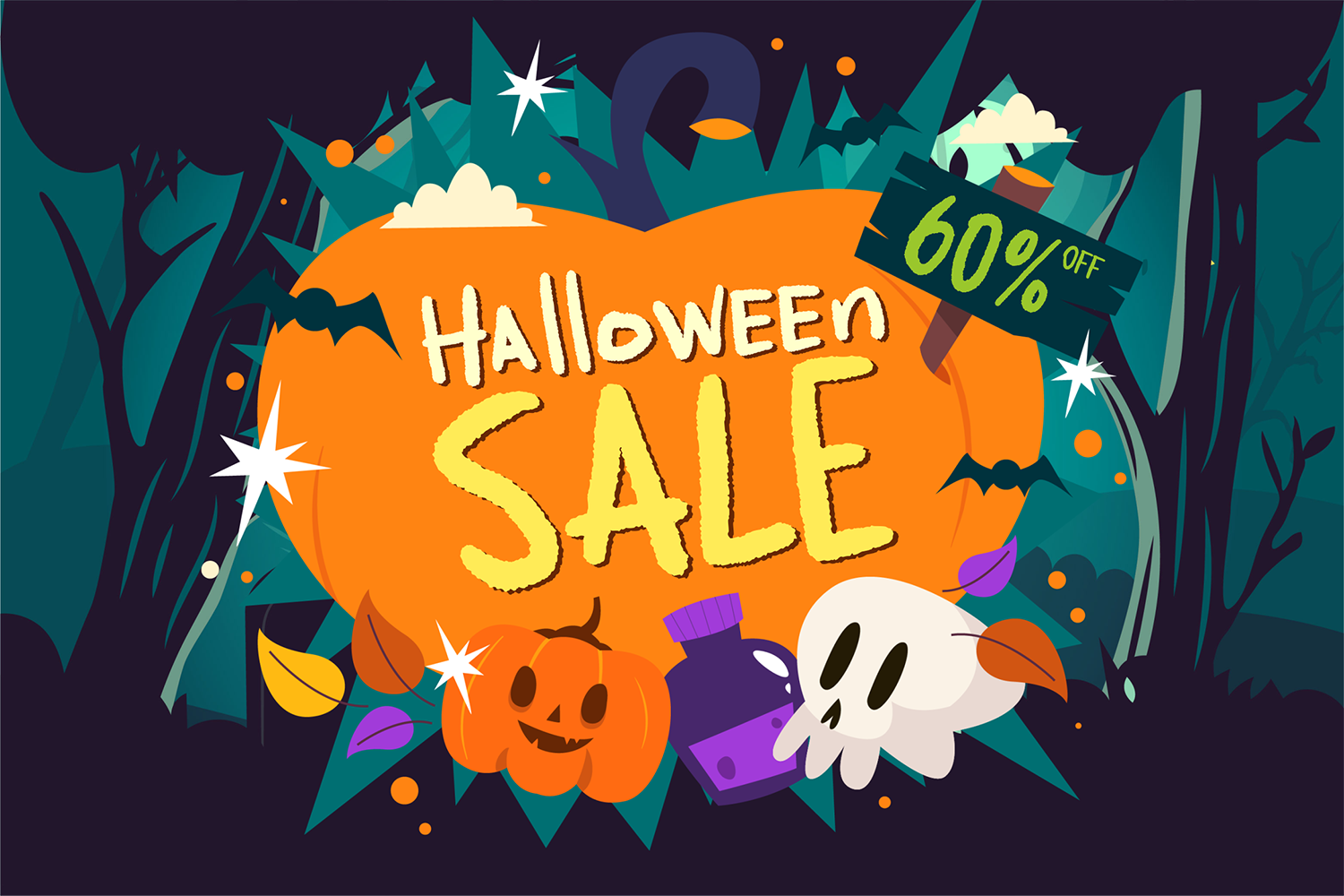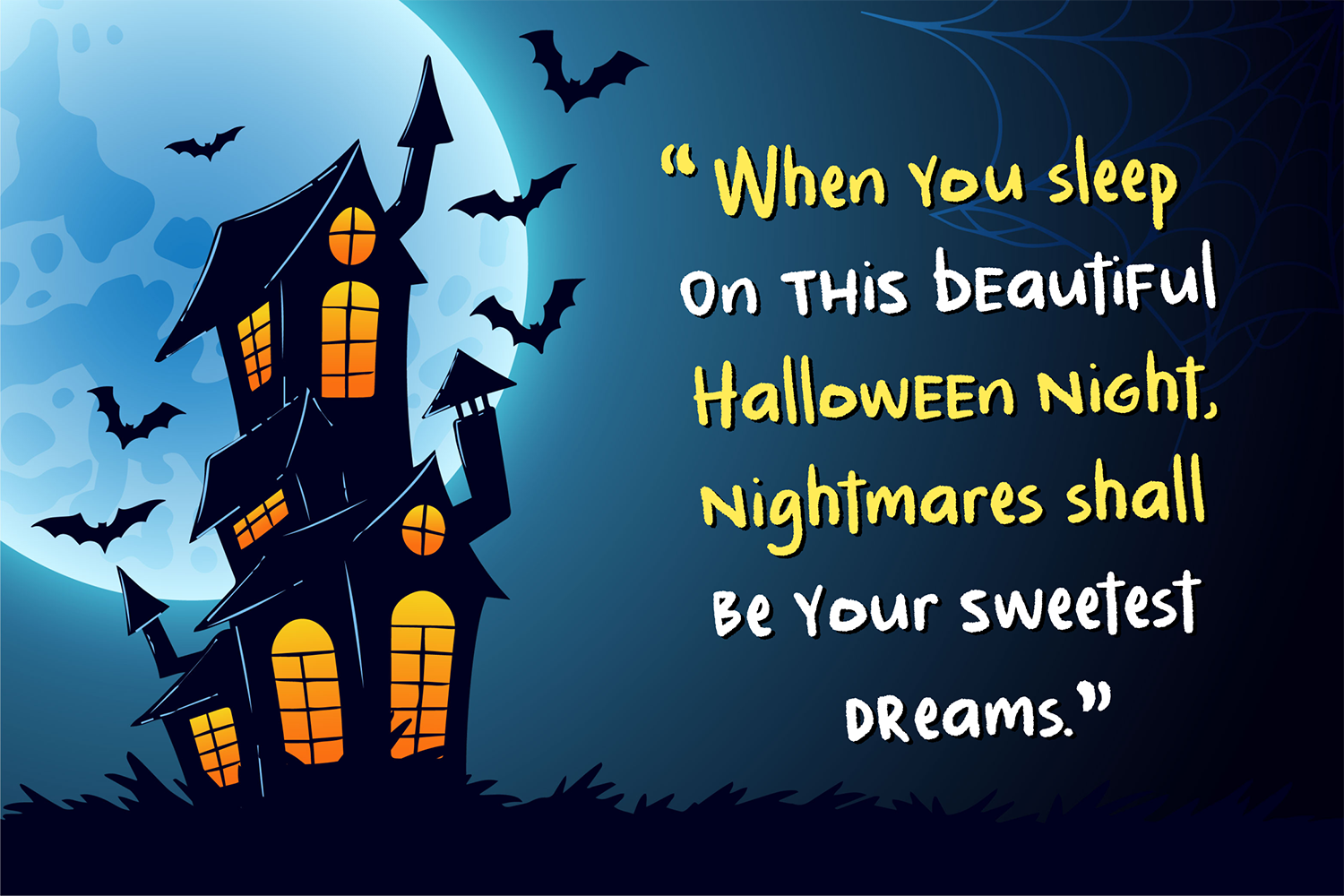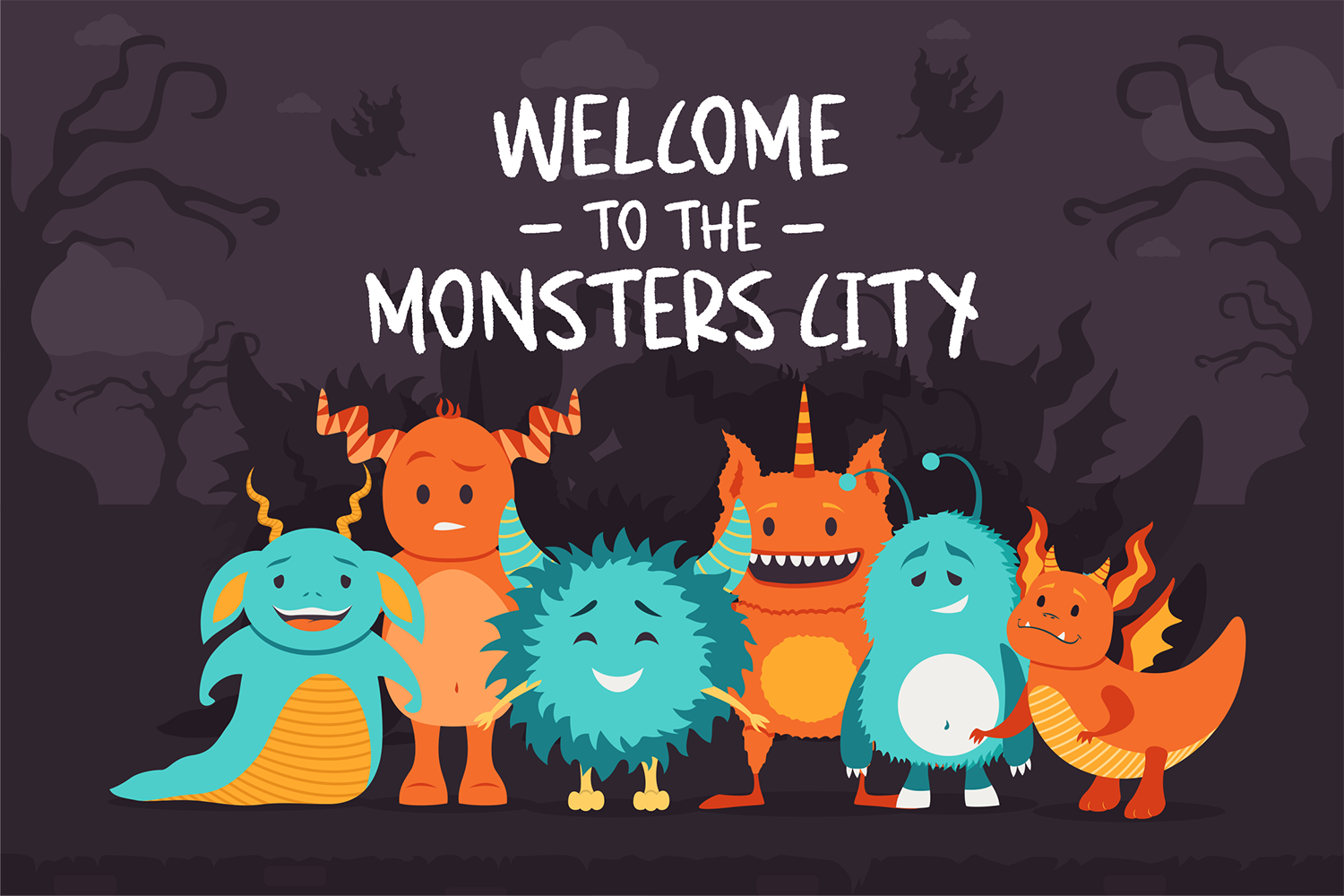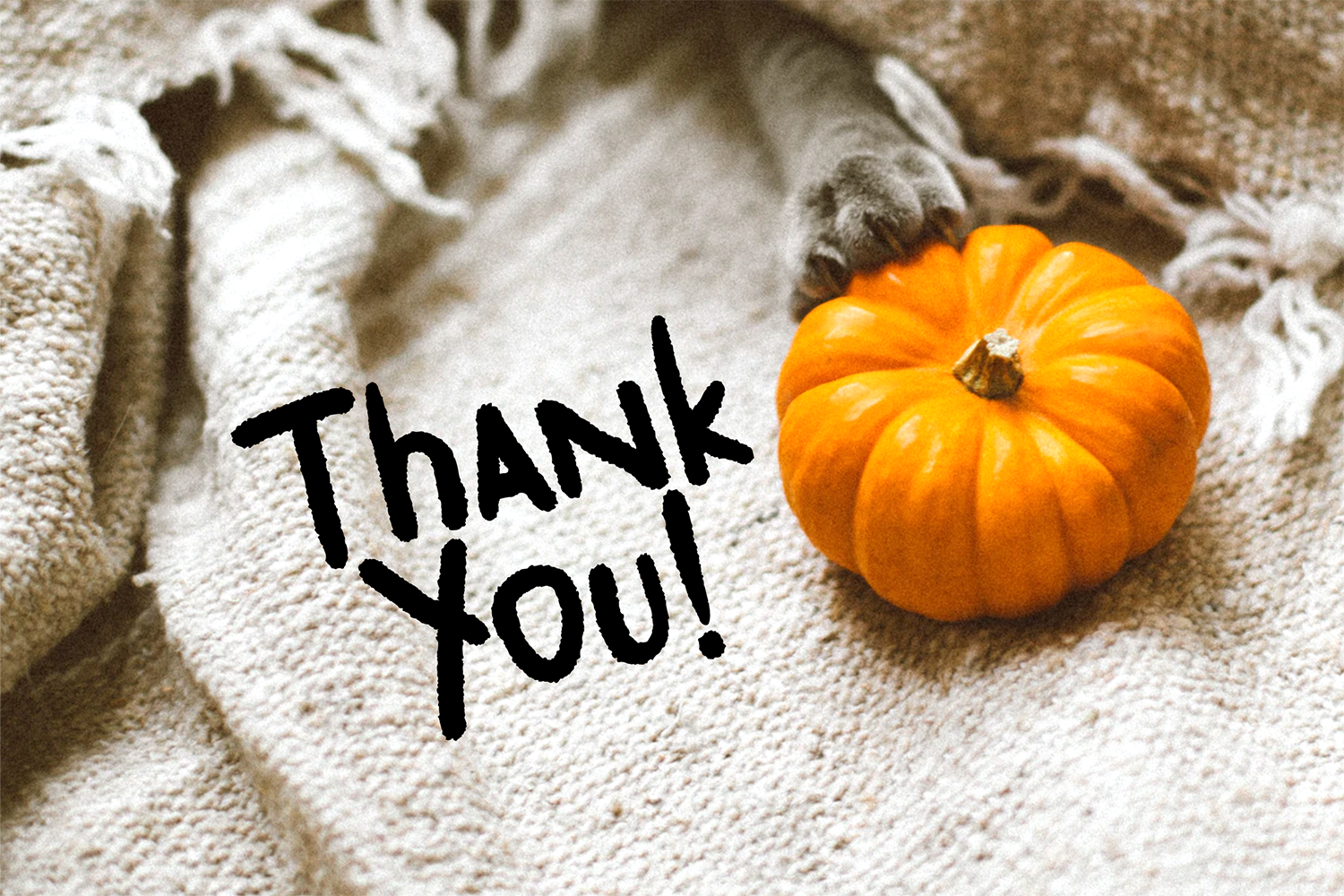
Spooky Whisper Free Font
Unveil the mystique with Spooky Whisper Free Font, a textured handwritten font inspired by Halloween. Infuse your product with an enigmatic aura using this unique typeface. This free typeface was designed by a talentedΒ Allouse Studio. If you like it don’t forget to check out the full version.